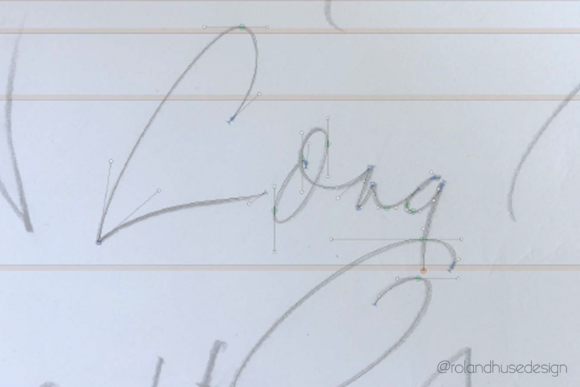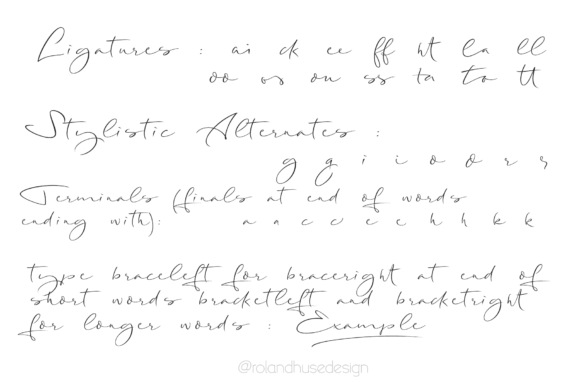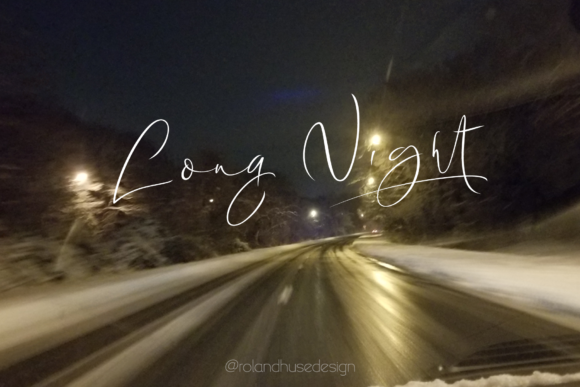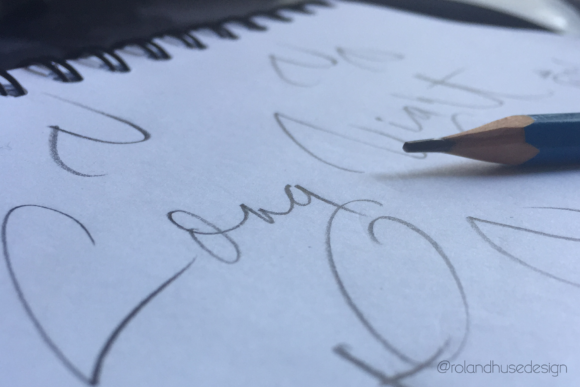
Long Night Font
About Long Night Font
Long Night is a stunning handwritten signature script, perfect for giving your designs an organic and authentic feel. This font comes with terminals, ligatures, and alternates for a more natural looking flow to your typographic projects.